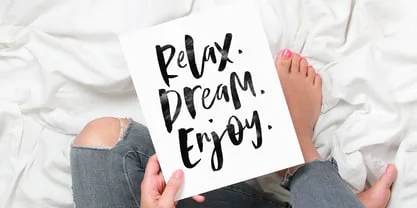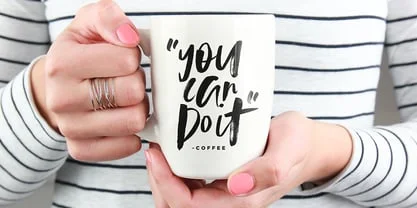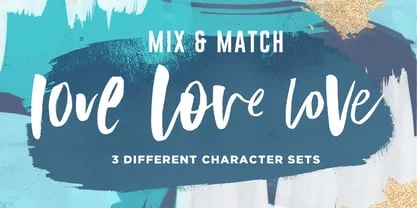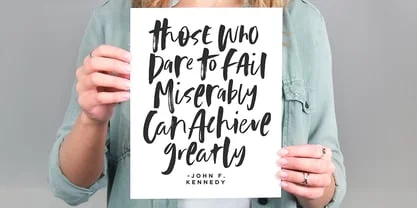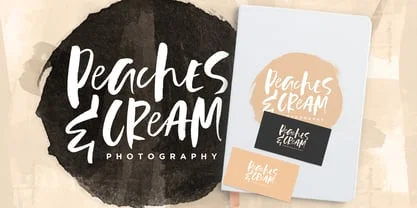
Misguided Font
A good typeface communicates tone before a single word is read. Misguided achieves this through distinctive character without sacrificing readability. The typeface brings an elegant, calligraphic sensibility to a broad range of creative disciplines, with refined proportions and careful stroke modulation that holds up whether the work is print-first or screen-first.
In practice, Misguided proves particularly effective for beauty packaging, feminine branding, luxury stationery, greeting cards, advertising campaigns. Designers reaching for it find that the type decisions feel resolved rather than laboured — a useful quality when client timelines are tight.
The range of applications extends to packaging design, editorial layouts, perfume labels, web design. That breadth is deliberate: the proportions and spacing were stress-tested across a wide range of mock briefs before the typeface was finalised.
Motion designers building title sequences and lower thirds find Misguided a reliable choice for projects that demand both personality and restraint. The design avoids the self-conscious quirkiness that dates quickly, settling instead for considered distinctiveness that holds up over time.